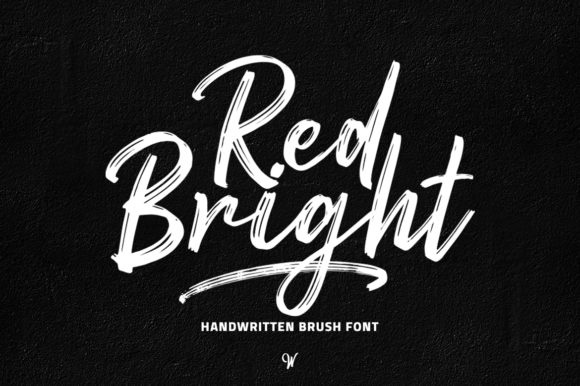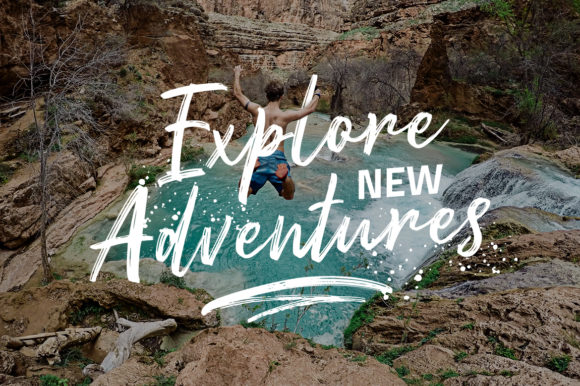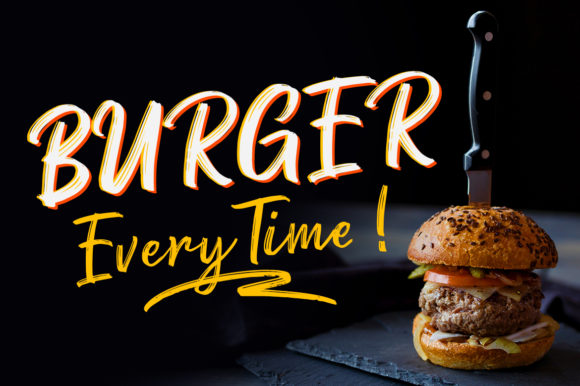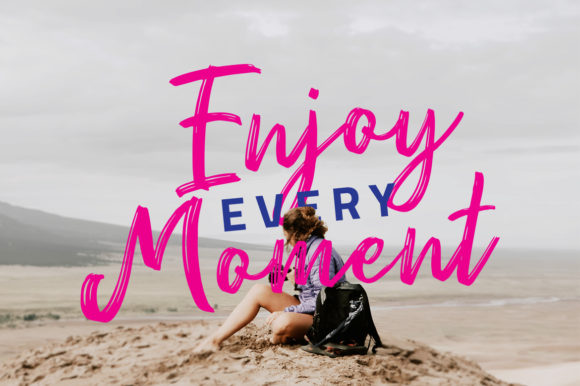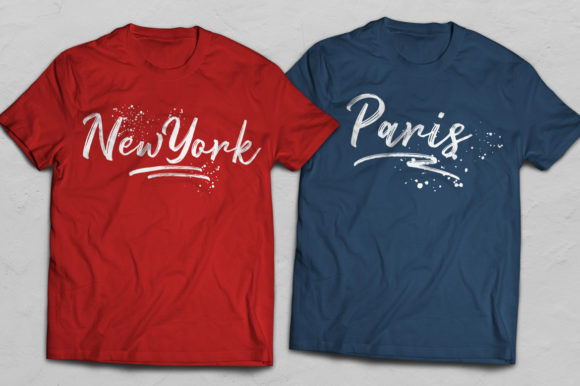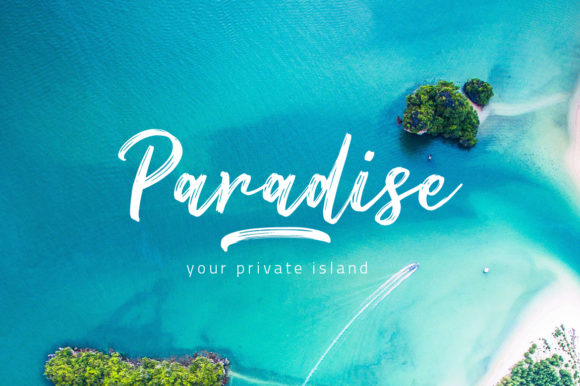
About Red Bright Font
The Red Bright is a striking brush font. It has rough and dry strokes which will give your designs a natural feel.
It’s perfect for signatures, branding, wedding, fashion, photography, titles, posters, social media, ad banners, book covers, packaging, handwritten quotes, greeting cards and advertising.